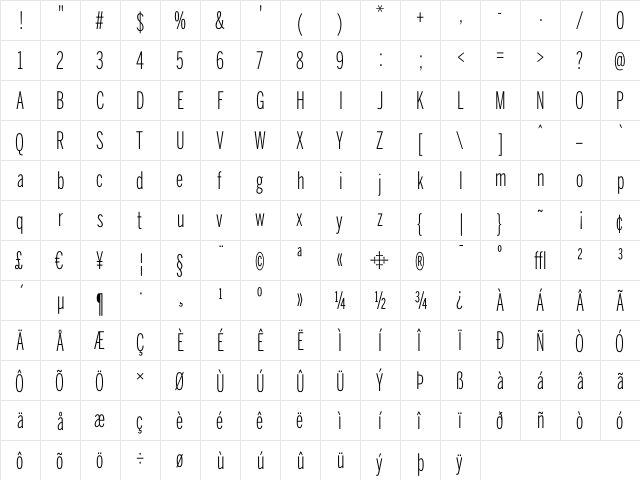
BentonSans UltraCondensed Light
Design Context for BentonSans Typeface
BentonSans offers clean, dependable letterforms without strong stylistic allegiance, making it a practical choice for designers who need flexibility. The delicate stroke weight brings airiness and refinement to layouts. Its narrow stance lets it pack a punch even in space-constrained designs.